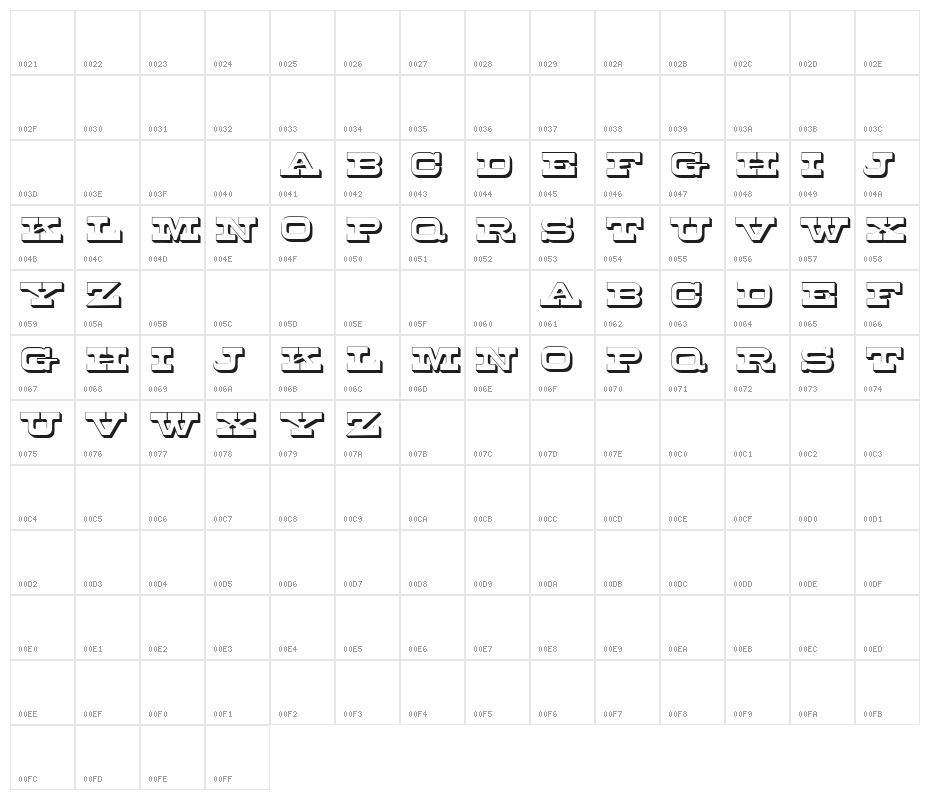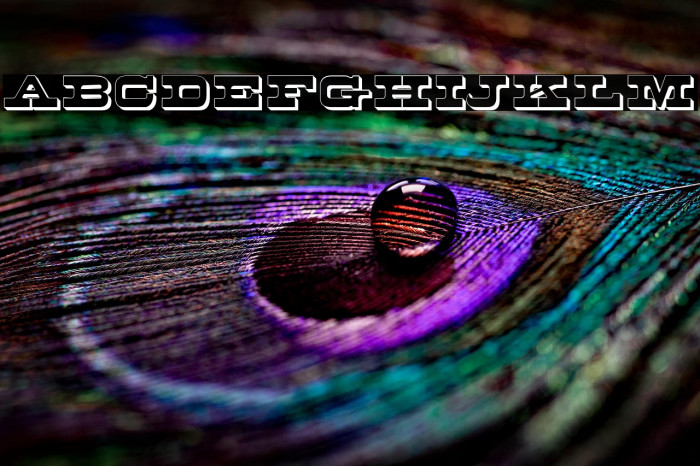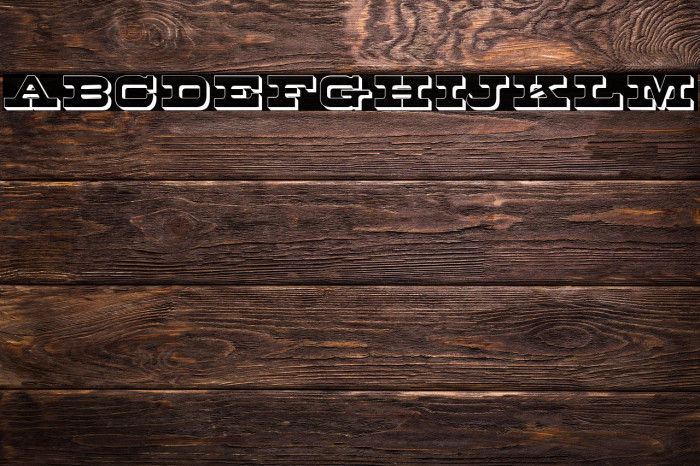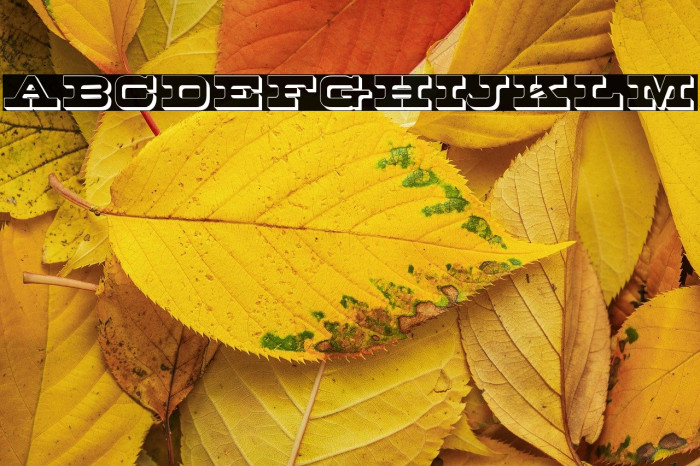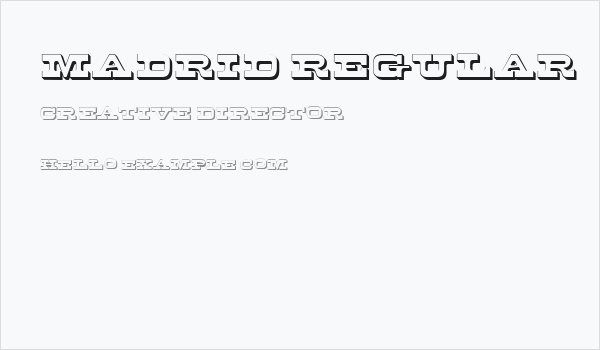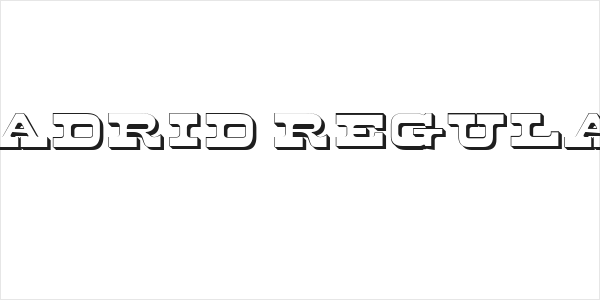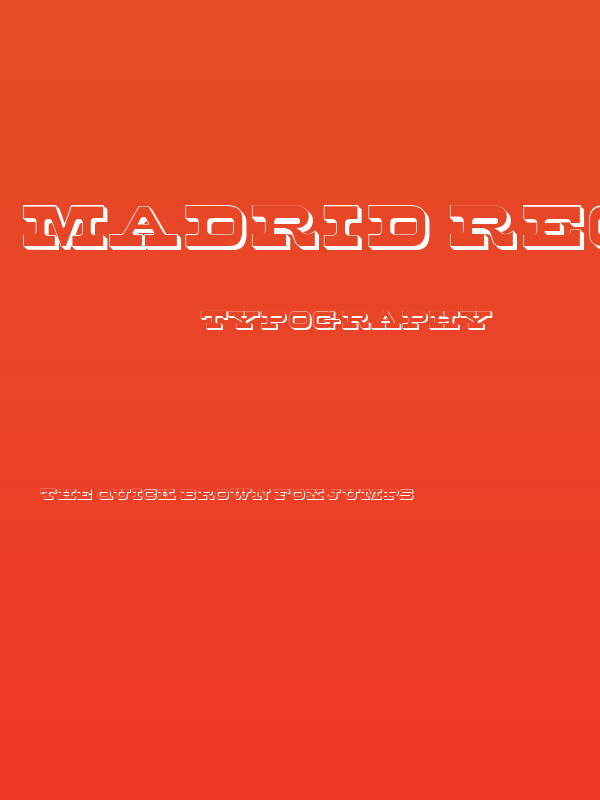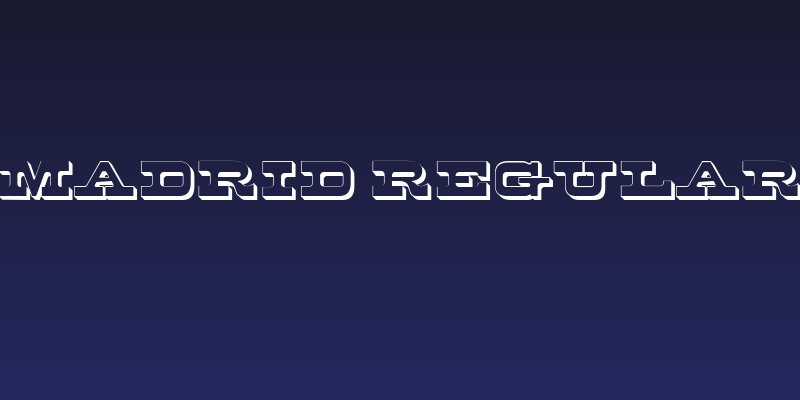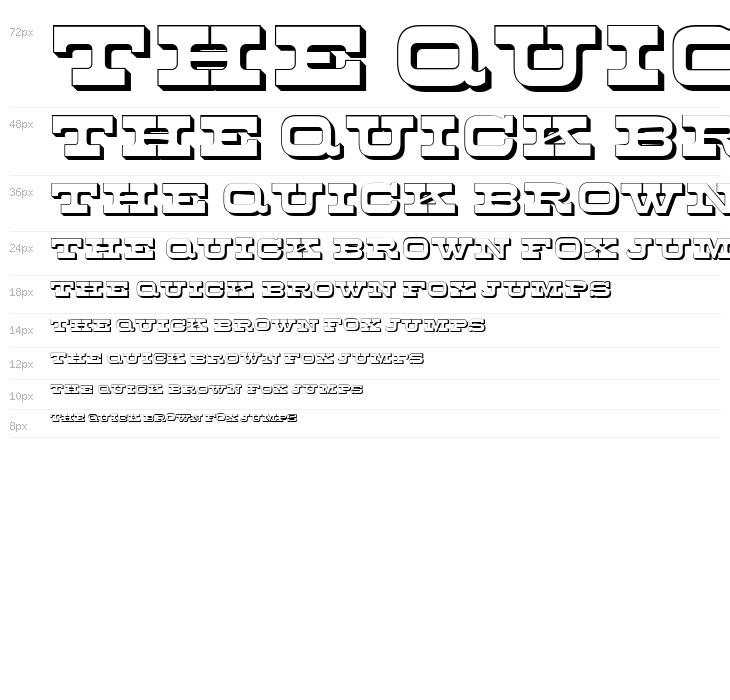
Madrid Regular Font
Madrid Regular Description
This font features a bold, decorative style with a distinct three-dimensional effect created by its shadowed outline. The uppercase letters are designed with a strong presence, making them ideal for attention-grabbing headlines or titles. The characters have a uniform width, contributing to a balanced and cohesive appearance. The font's unique shadowing adds depth and dimension, enhancing its visual impact. Its bold strokes and geometric shapes give it a modern yet timeless feel, suitable for various creative projects.